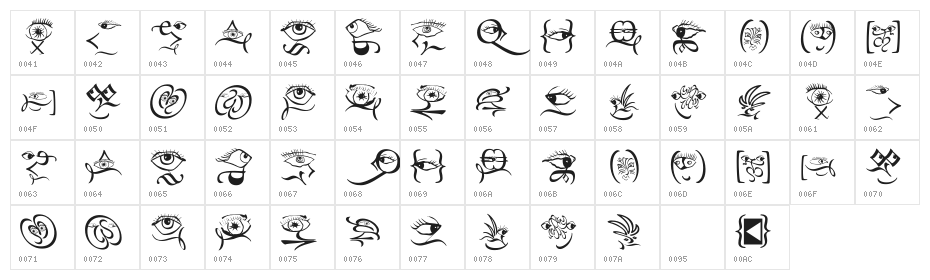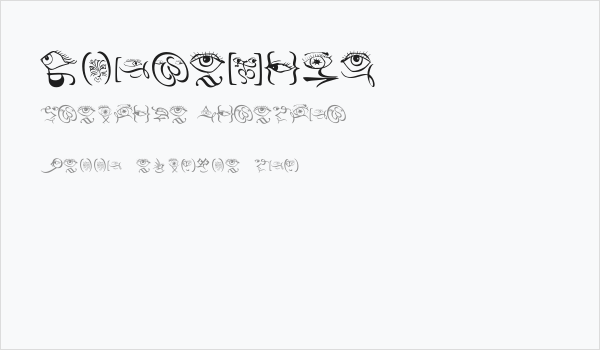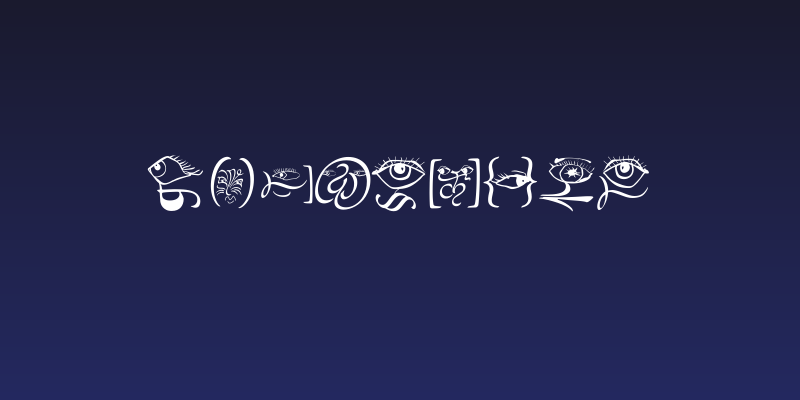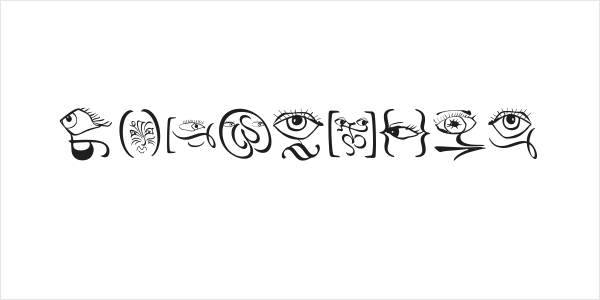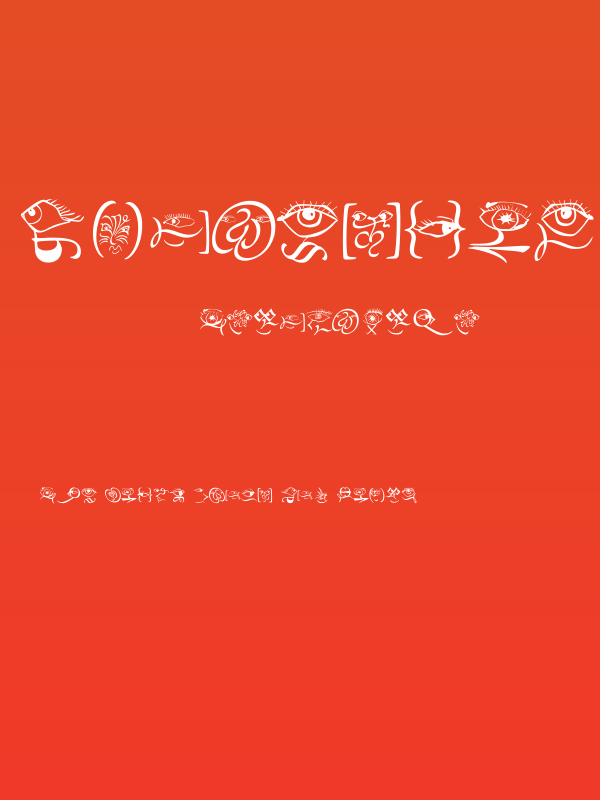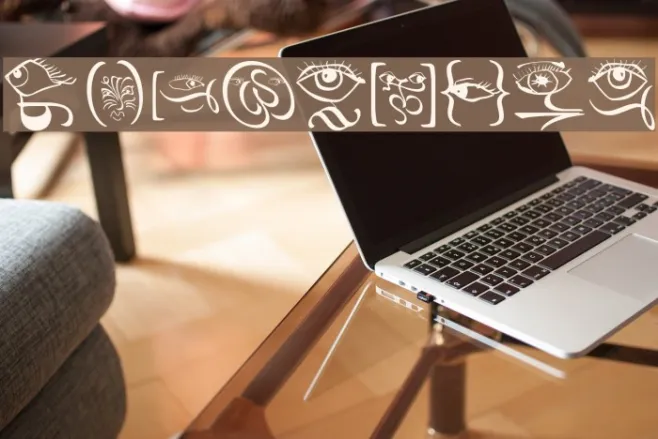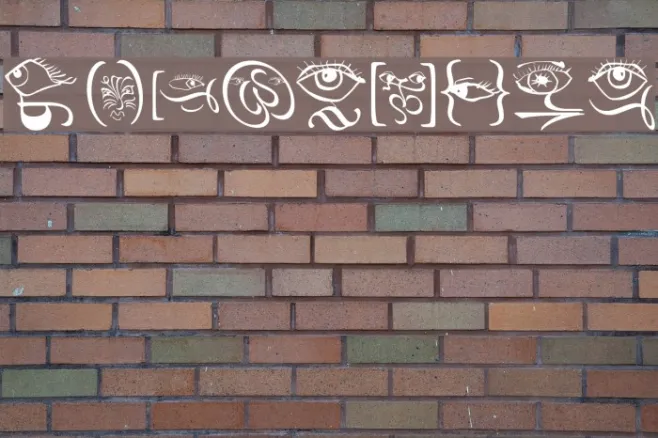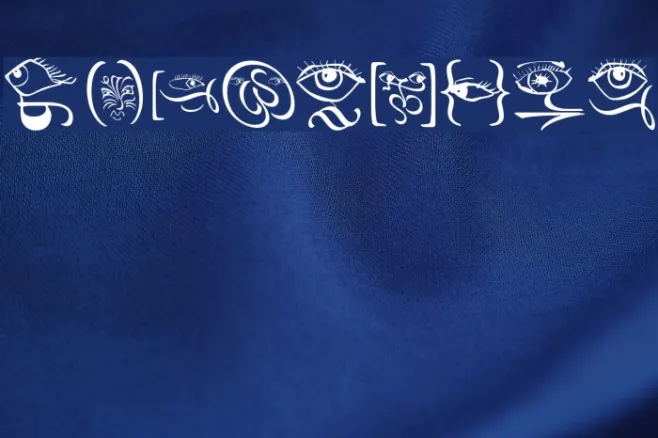
Florenius Font
Florenius Description
This font is a highly decorative and artistic typeface, featuring intricate and whimsical designs that incorporate elements such as eyes, floral motifs, and abstract shapes. Each character is uniquely crafted, making it more of an artistic expression than a traditional font. The characters are elaborate, with varying line thicknesses and ornamental details that give them a dynamic and expressive appearance. This font is not suitable for body text due to its complexity but can be used effectively for artistic projects where visual impact is desired.
| Use Case | Logos, Artistic designs, Posters |
| Proposed Projects | Ideal for art projects, creative posters, album covers, and any design work that requires a unique and eye-catching typeface. |